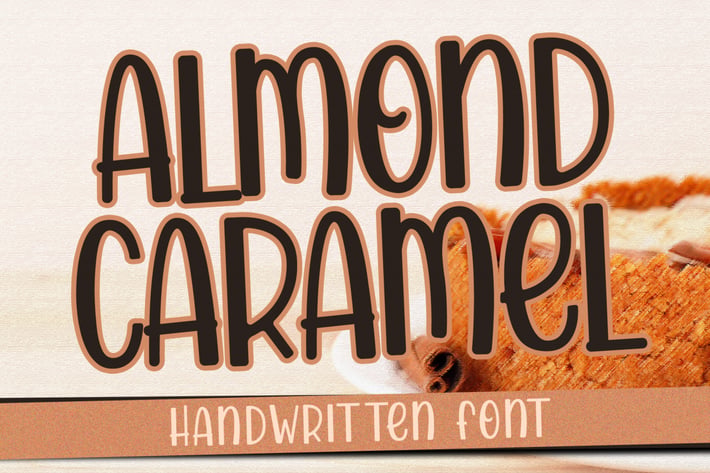
Almond Caramel - Handwritten Font
Almond Caramel is a sweet, delicious and relax handwritten style font.
- All in caps with two size
- Numeric
- Symbols
- Multilingual